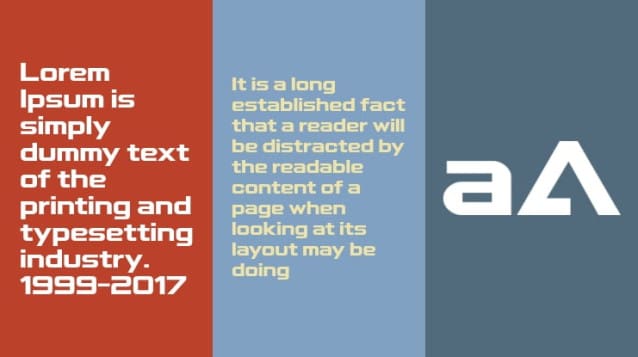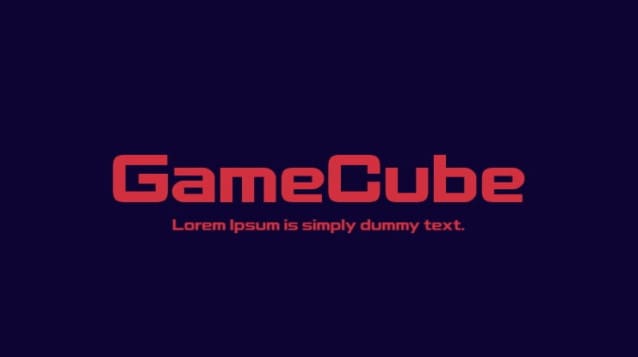
GameCube Font
GameCube Font, It has a distinctive futuristic design. Use it to create time-traveling movie posters for futuristic or extraterrestrial productions. Fantastic for creating unique cards and artwork for science fiction fans.This font was created to be used for universal events like game competitions, wall advertisements, and poster designs. Your design can look better with a simple combination. Purchase it right away to enjoy using it ahead of the competition.
GameCube Font! GameCube is basically a video game that was published by Nintendo. The font that is used in the name and logo of this video game was designed by Bleutuna. This beautiful font has bold characters that come with numbers, uppercase letters, and special characters.
It is perfect for text headlines purposes and titling purposes. This interesting font has stylish characters. It comes in unique glyphs and stylistic alternates. The unique letters of this font belong to the sans serif font family but this font comes in the logo category in the font family.